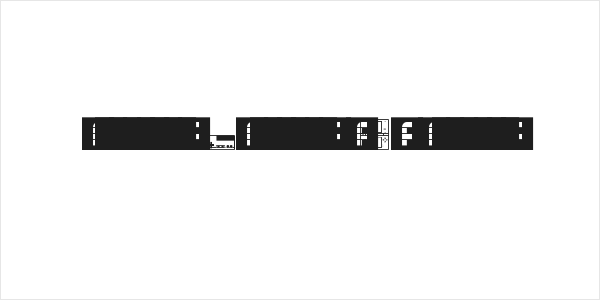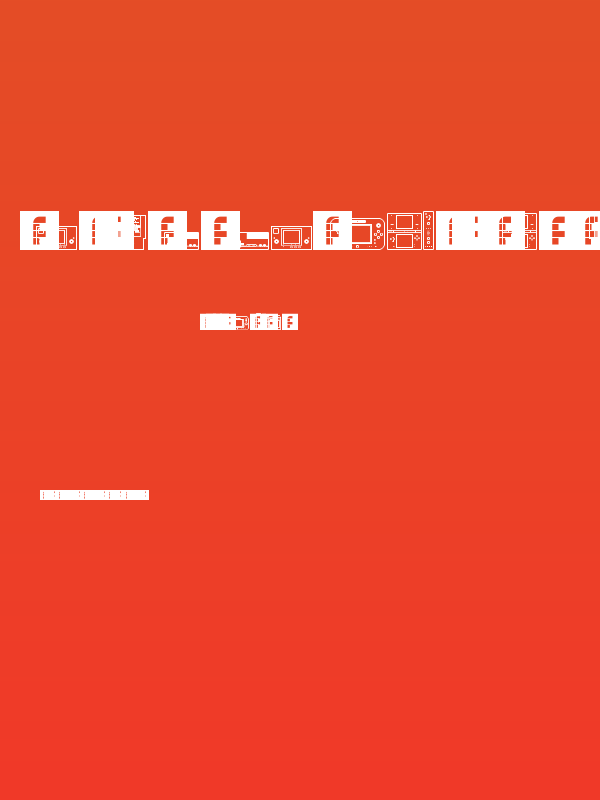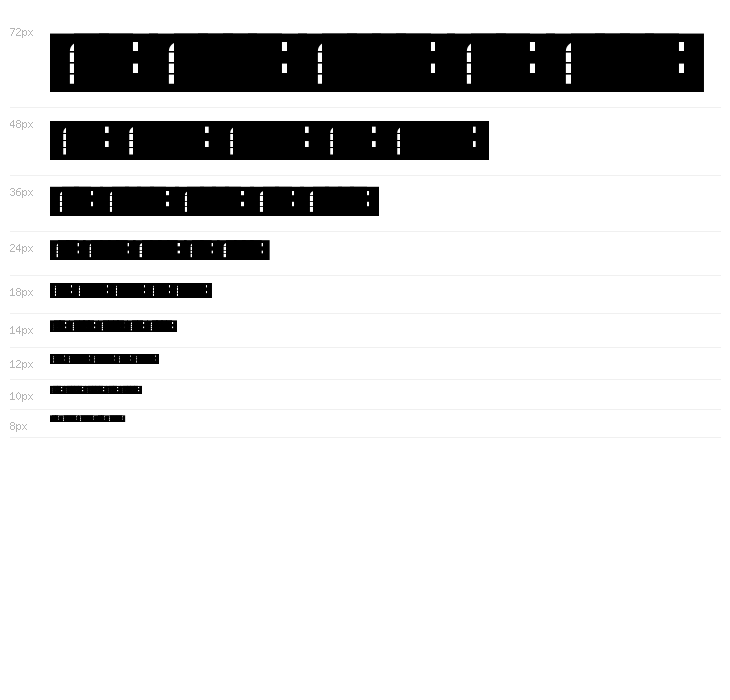
Nintendo Dingbats NBP Regular Font
Nintendo Dingbats NBP Regular Description
This font is a collection of dingbats featuring various Nintendo gaming consoles and handheld devices. Each character is represented by a detailed, monochrome illustration of iconic gaming hardware, such as classic consoles and portable systems. The style is playful and nostalgic, capturing the essence of gaming history with precision and charm. The illustrations are clear and well-defined, making them suitable for decorative purposes. This font is ideal for projects that aim to evoke a sense of nostalgia or celebrate gaming culture.
| Proposed Projects | Ideal for gaming-themed designs, retro posters, merchandise, and fan art celebrating Nintendo's legacy. |